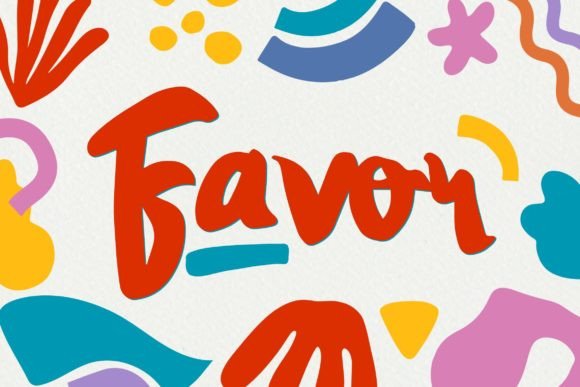
Introducing Favor Font, the ultimate display font that commands attention and leaves a lasting impression. Its bold, impactful strokes and striking letterforms make it an irresistible choice for those seeking to make a statement.
Unleash your creativity with Favor Font and experience the power of visual impact. Its thick, bold lines demand attention, making your designs stand out from the crowd. Whether you're crafting headlines, designing posters, or creating a memorable brand identity, Favor Font is your secret weapon to convey strength, confidence, and a touch of modernity.
Step into the world of Favor Font and let your imagination soar. Its captivating curves and dynamic shapes create a sense of energy that draws the eye and keeps it engaged. Let your words dance across the page with this captivating font, leaving a trail of visual delight wherever it goes.